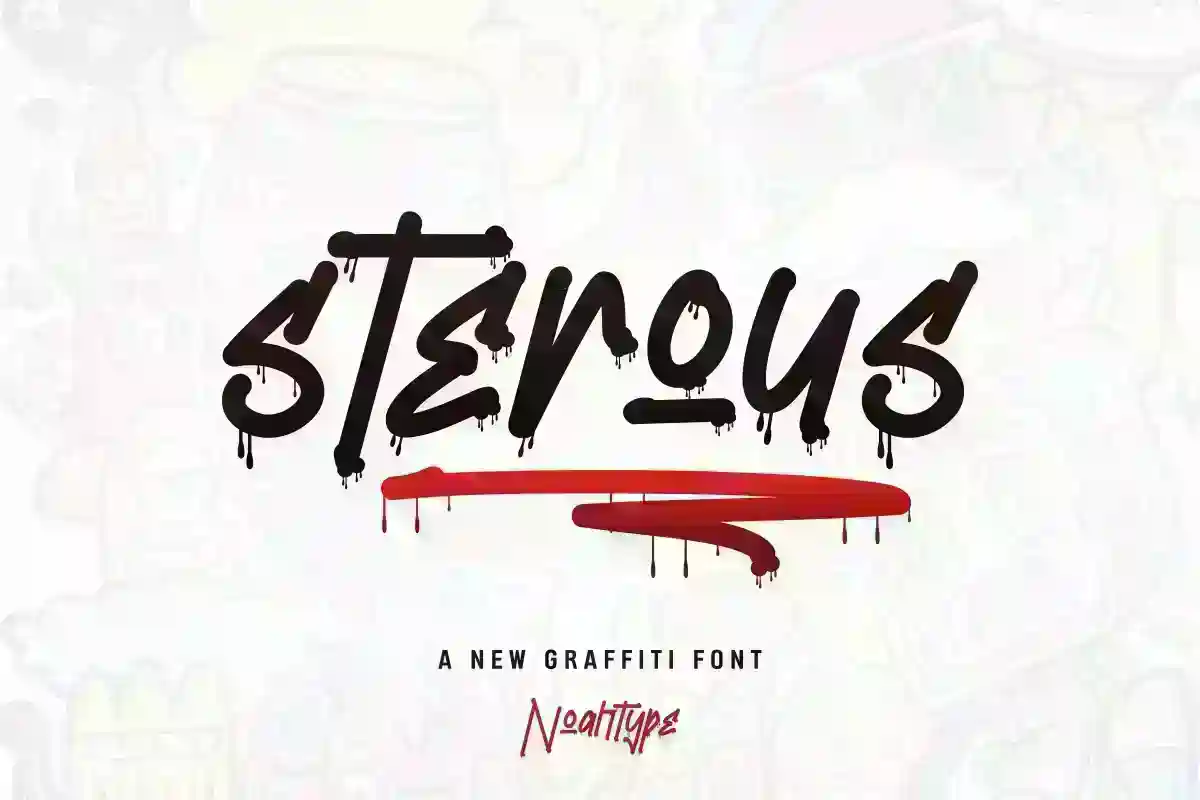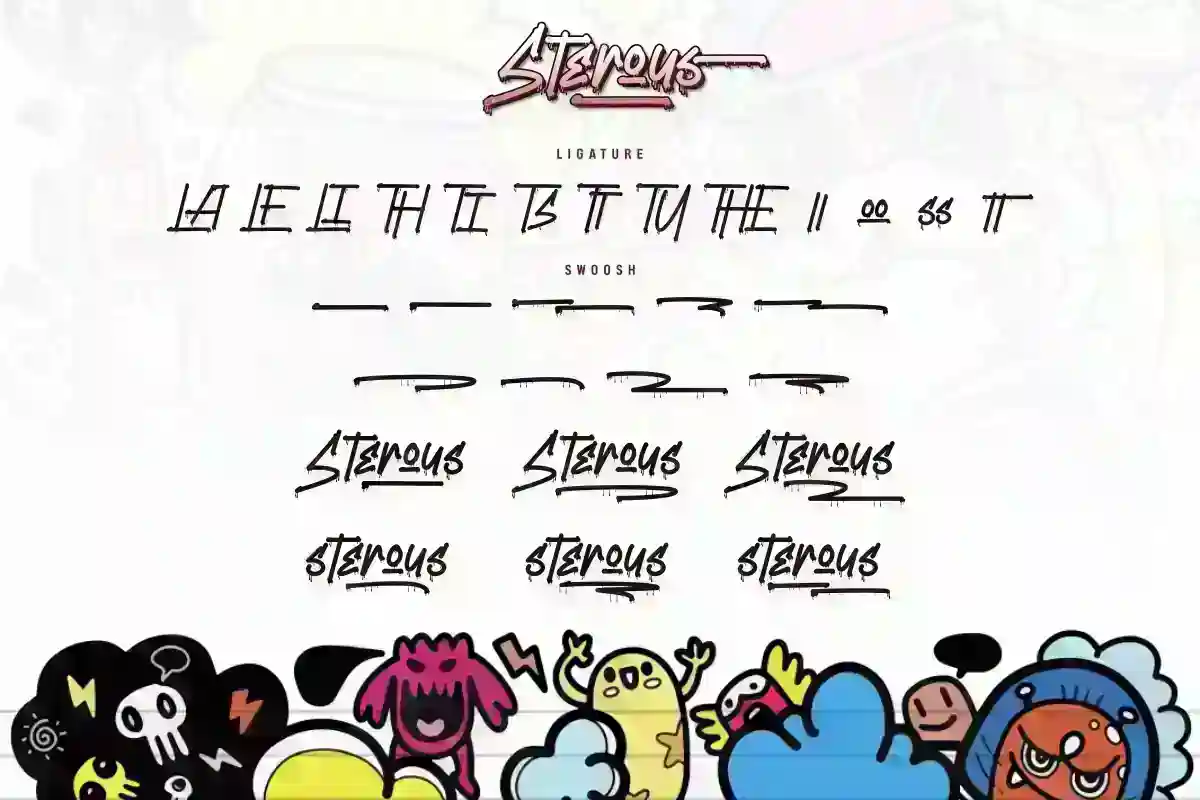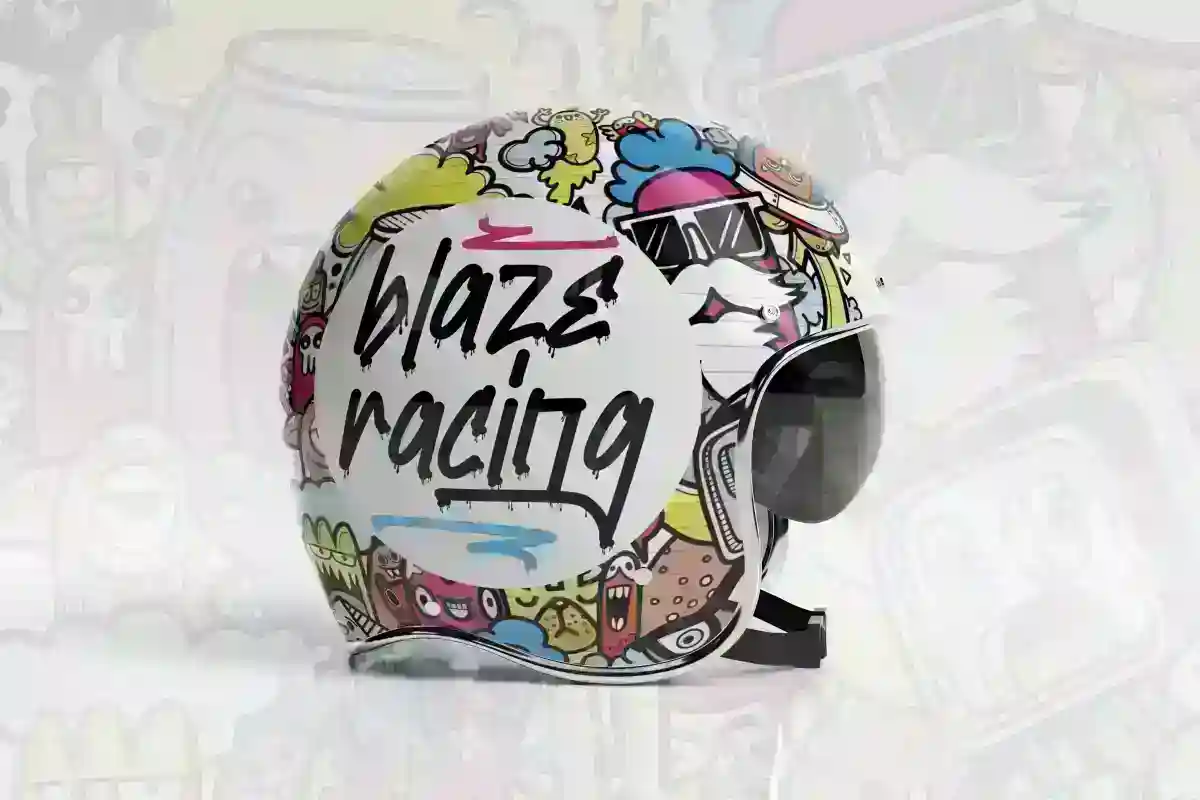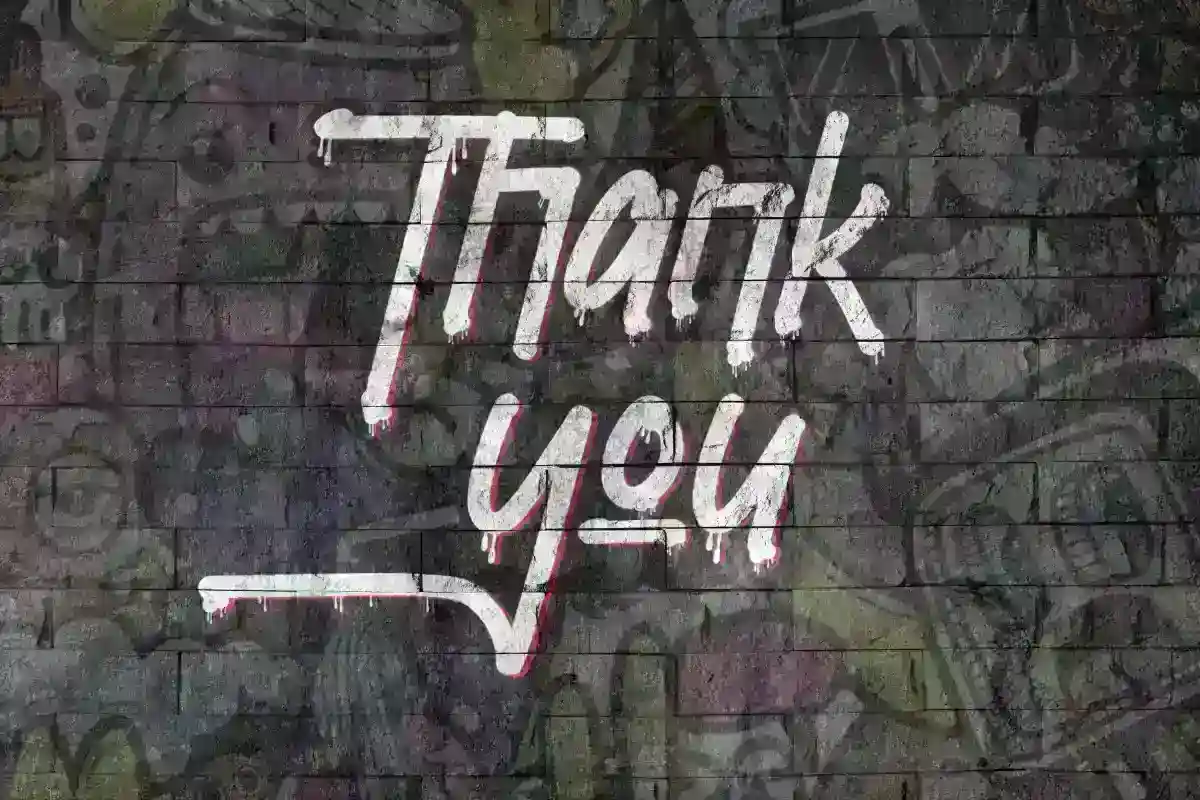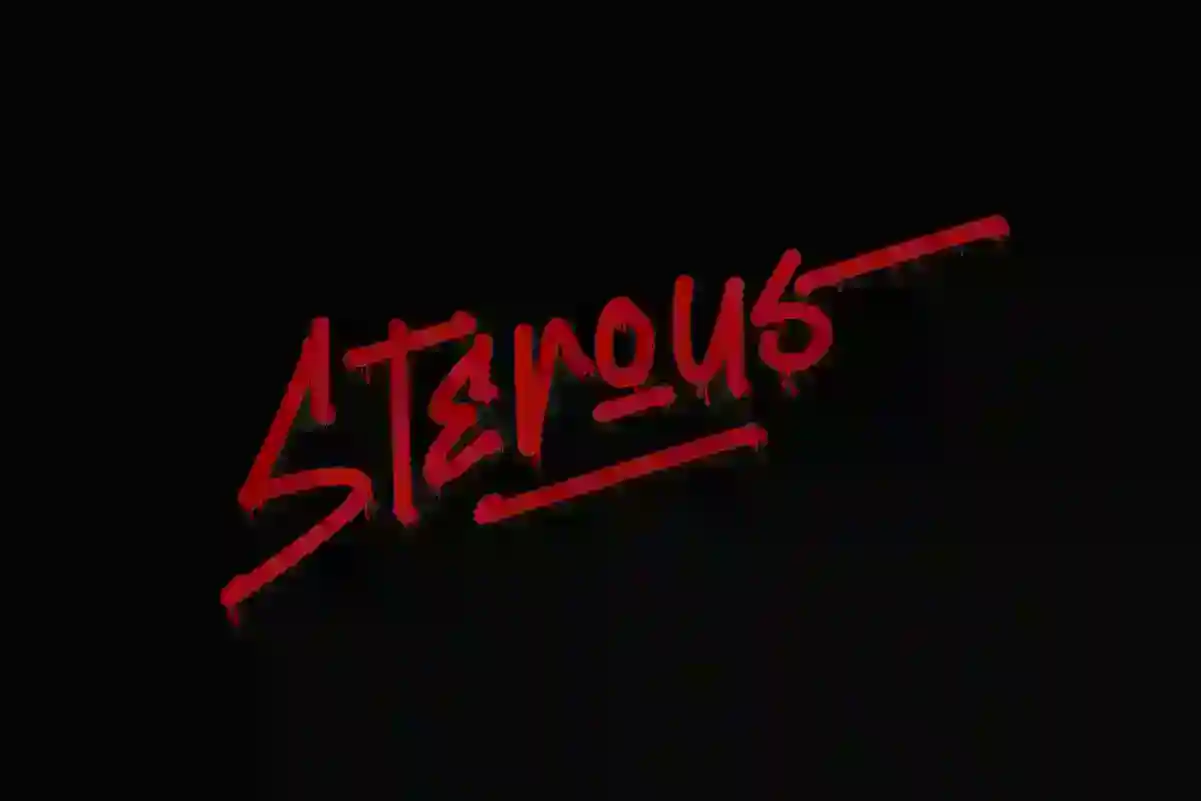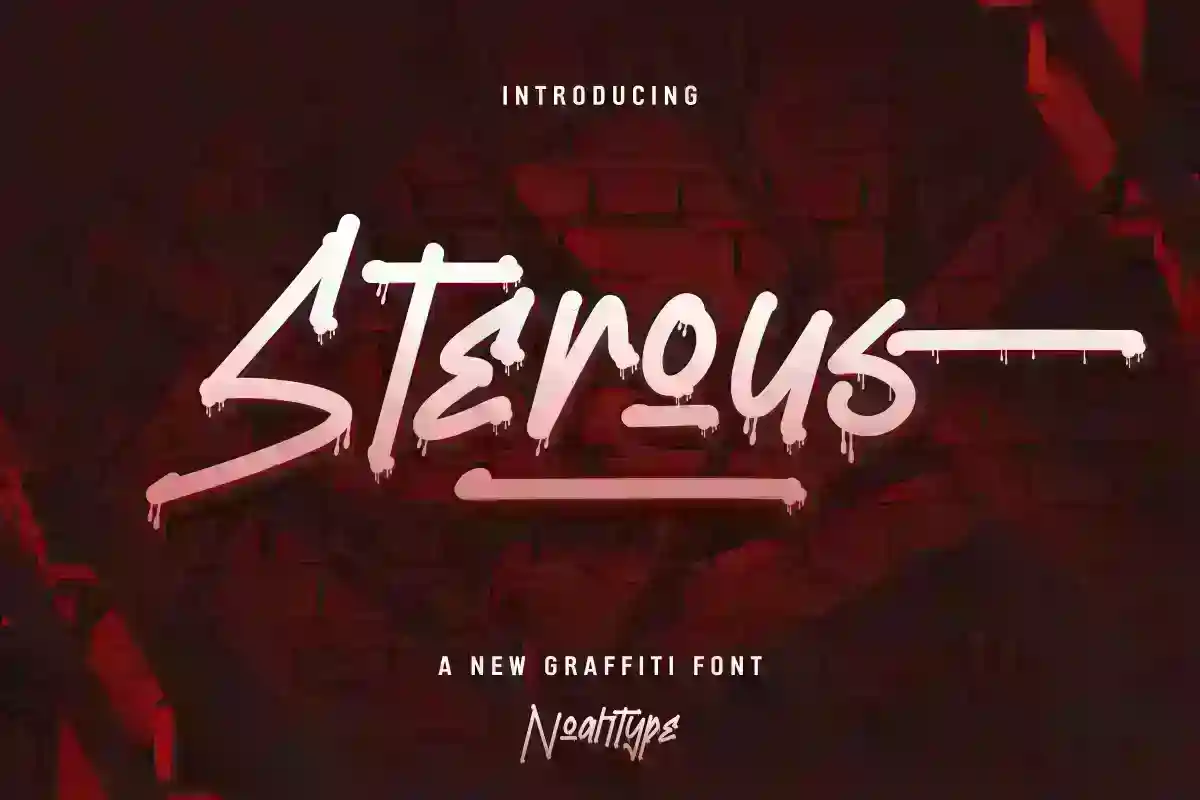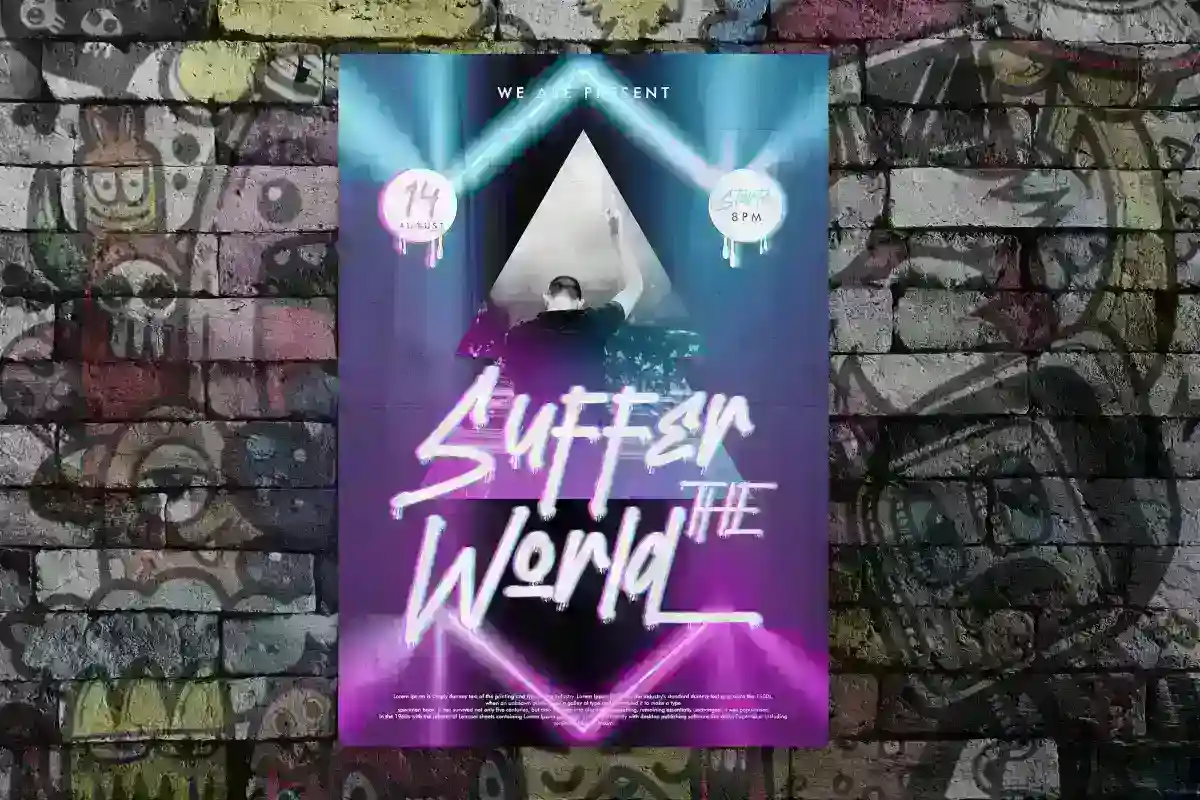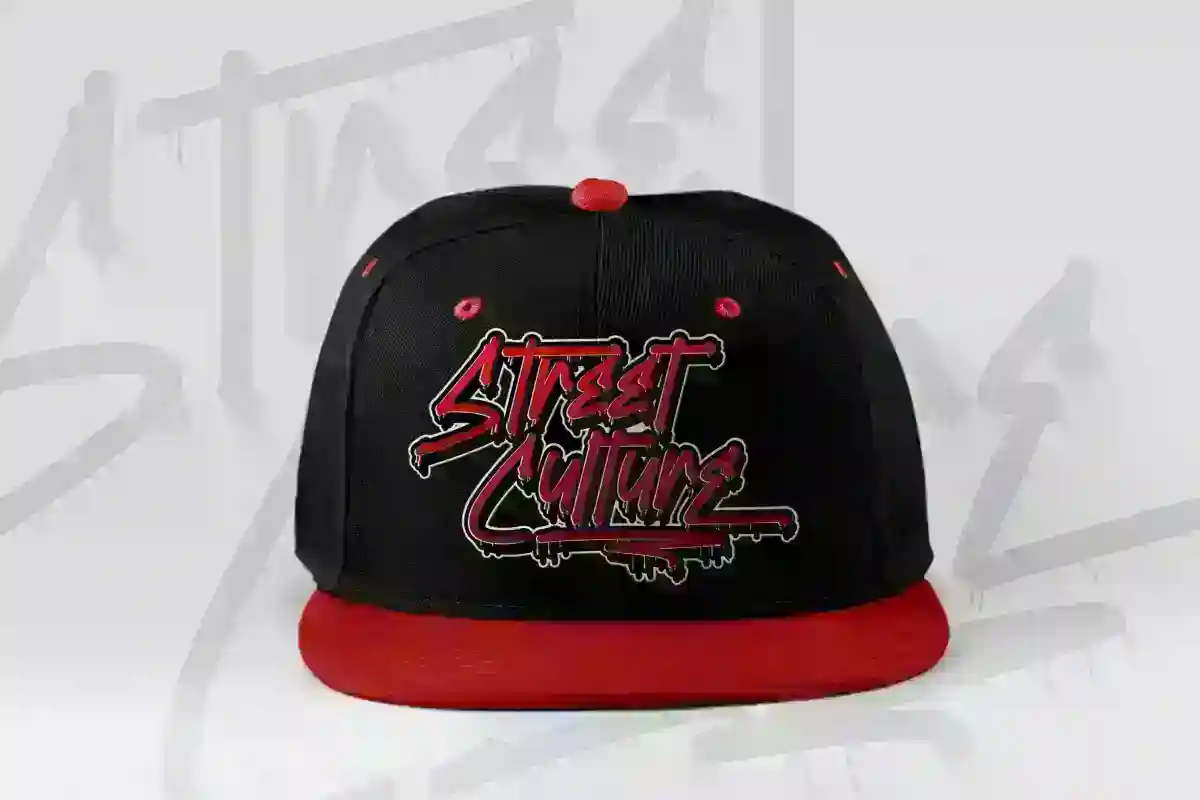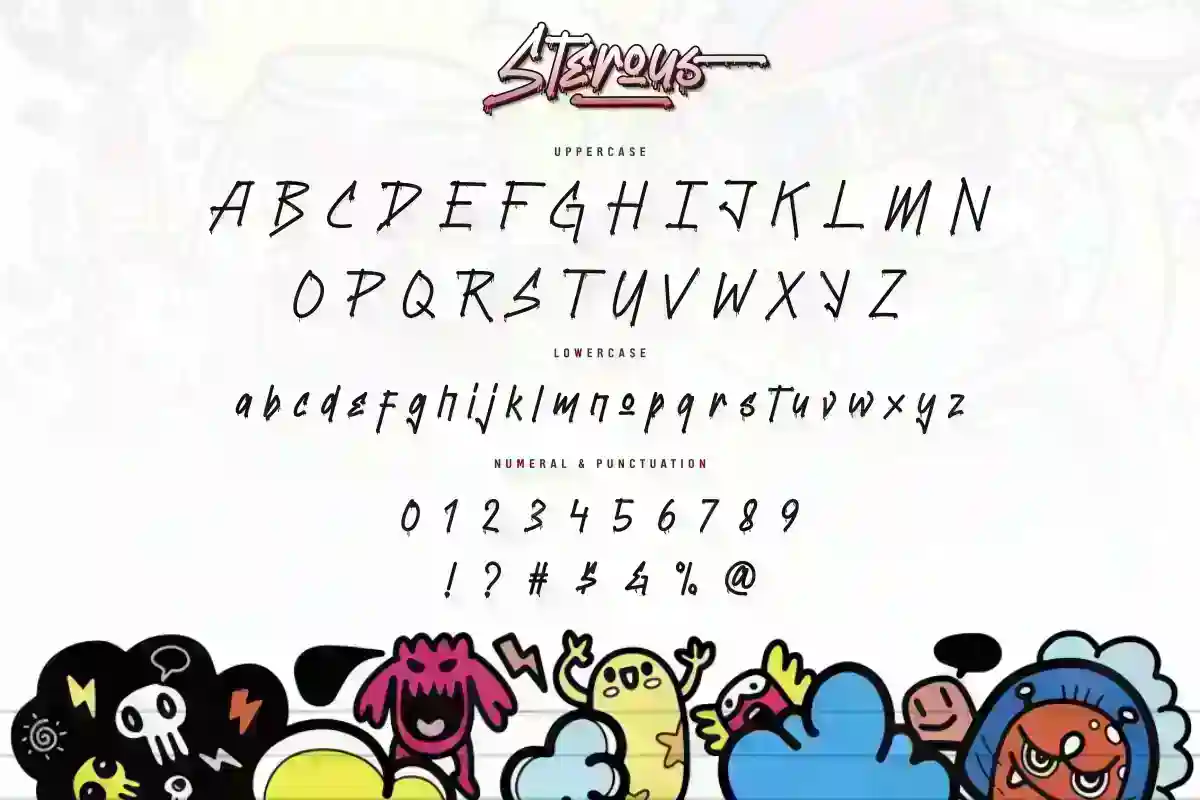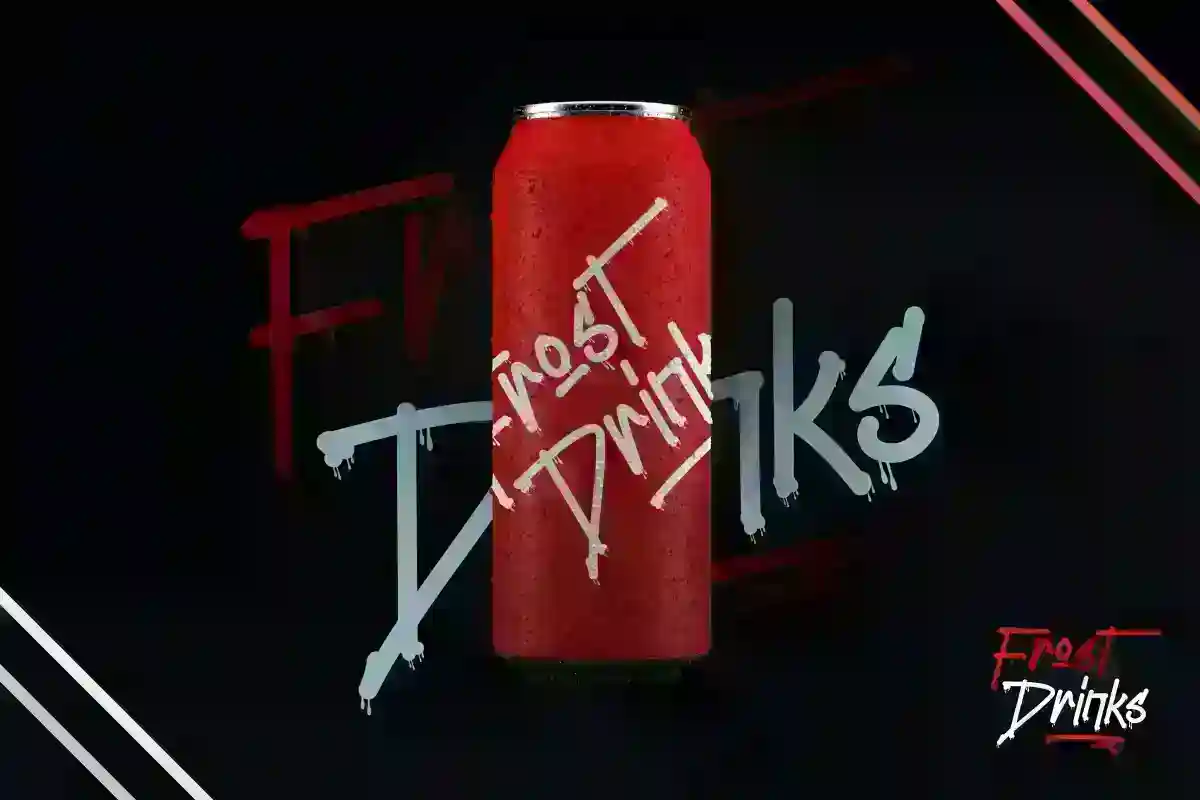
Bring the raw energy of the streets into your designs with Sterous Graffiti Font, a bold and edgy typeface created for artists, designers, and brands that dare to stand out. This graffiti-inspired font is designed with authentic street-style strokes, giving your work an unmistakable urban vibe. Whether you’re working on posters, album covers, branding, or social media graphics, Sterous Graffiti will add a powerful statement to your projects.